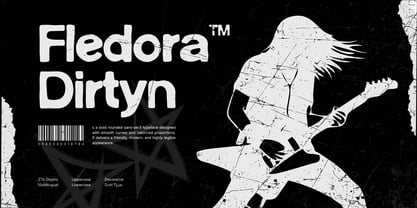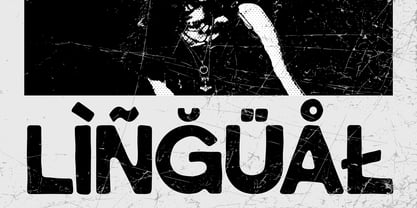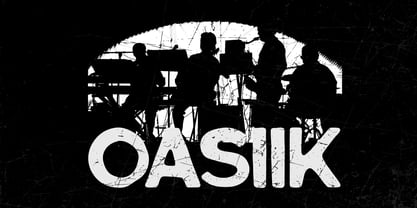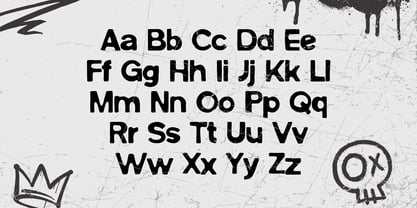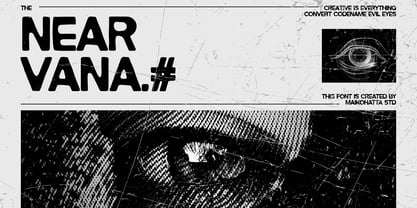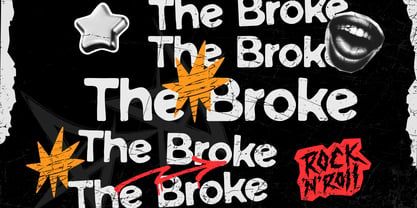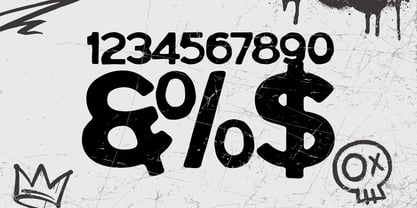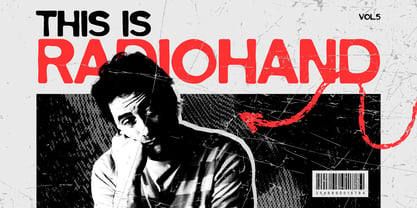
Fledora Dirtyn
by Maikohatta
The Fledora Dirtyn Font Family was designed by Gilang Ternadho and published by Maikohatta. Fledora Dirtyn contains 1 styles. More about this family
Introducing our new product Fledora Dirty – Bold Rounded Grunge Display Fledora Dirty is a bold rounded sans-serif typeface crafted to deliver strong visual impact with a smooth and modern personality. Designed with balanced proportions and soft curves, this font combines a friendly appearance with a powerful presence, making it perfect for eye-catching headlines and standout branding. With its clean yet expressive letterforms, Fledora Dirty works beautifully for posters, music covers, streetwear branding, logos, merchandise, social media graphics, packaging, and contemporary design projects. The bold weight enhances readability while maintaining a distinctive decorative character. Featuring multilingual support and a complete set of uppercase and lowercase letters, this typeface offers versatility for both professional and creative applications.
Designers: Gilang Ternadho
Foundry: Maikohatta